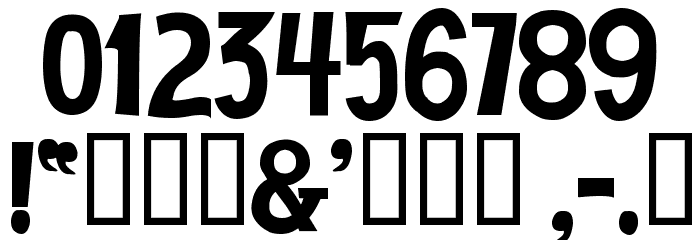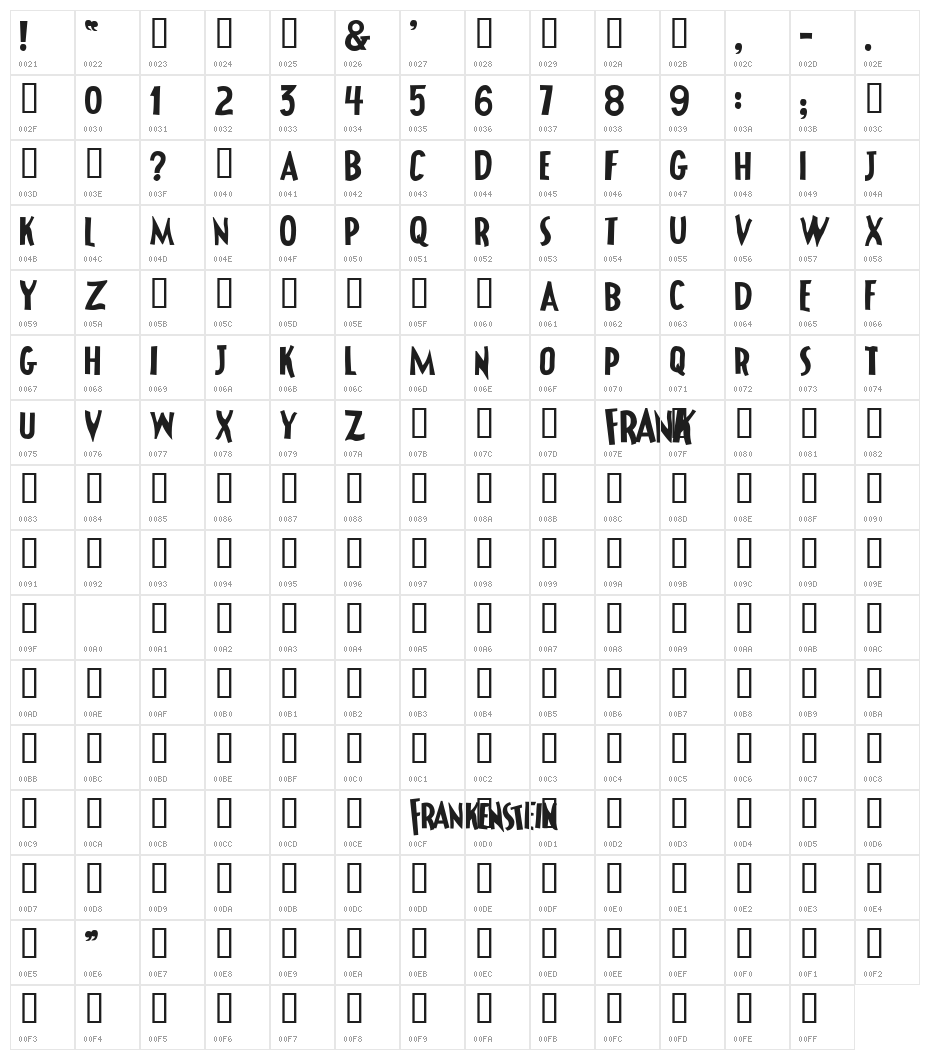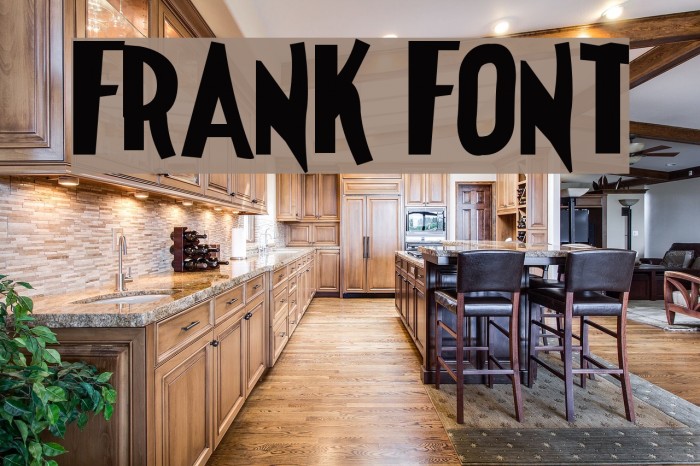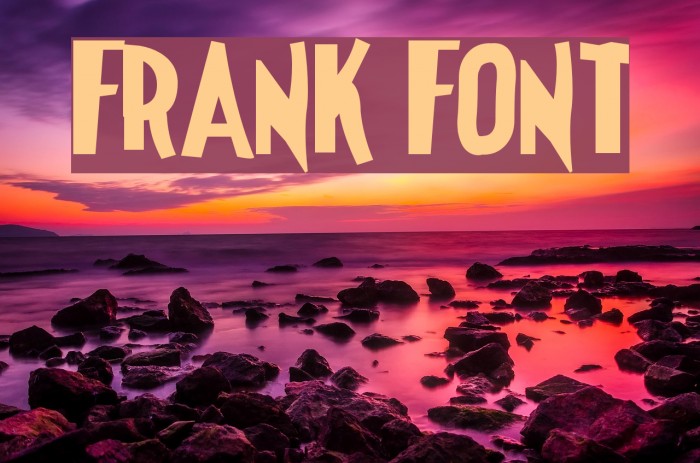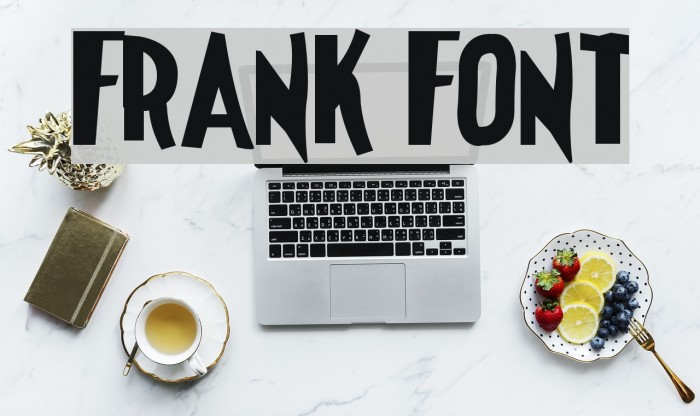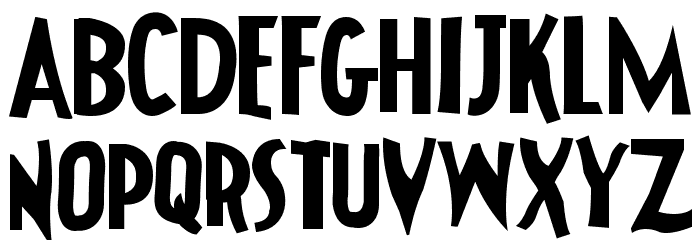
Frank Font
Frank Description
This font features a bold and dynamic style with a slightly irregular and playful appearance. The uppercase letters are tall and narrow, with some characters exhibiting unique curves and angles that add a sense of movement. The lowercase letters maintain a consistent style, complementing the uppercase with their own distinct flair. The numbers are bold and easily readable, matching the overall aesthetic of the font. Special characters are designed to fit seamlessly with the rest of the set, ensuring versatility in various design contexts.
| Proposed Projects | Ideal for posters, branding, and headlines that require a bold and eye-catching typeface. |